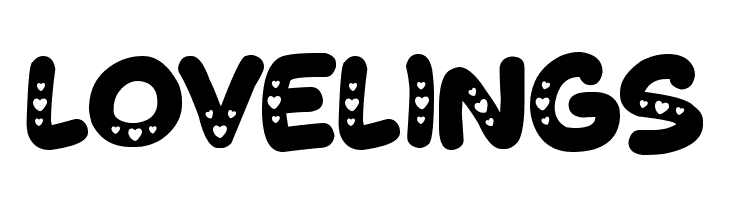
A playful, heart-themed font with bold, rounded characters.
A playful, heart-themed decorative font with bold, rounded outlines.
A playful, heart-themed decorative font with bold, rounded characters.